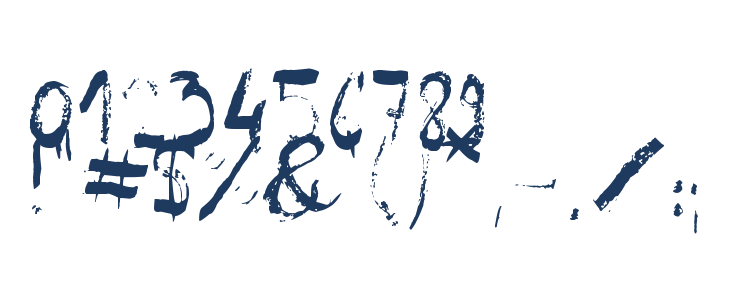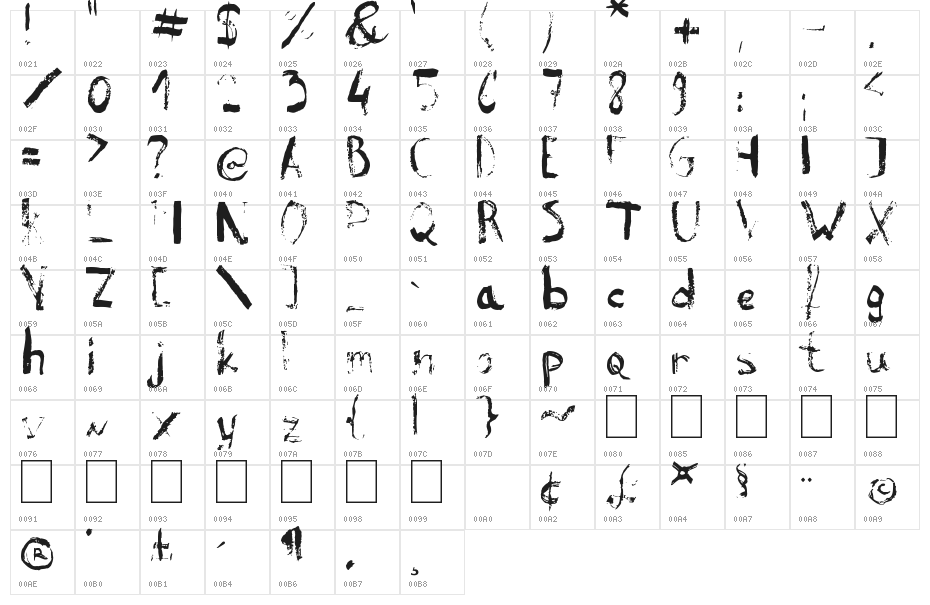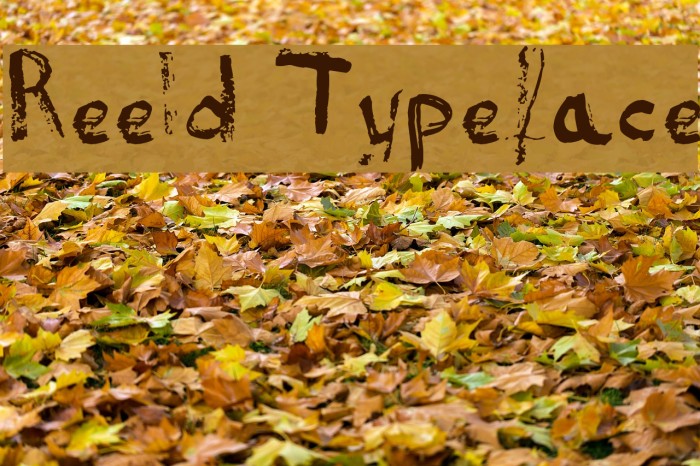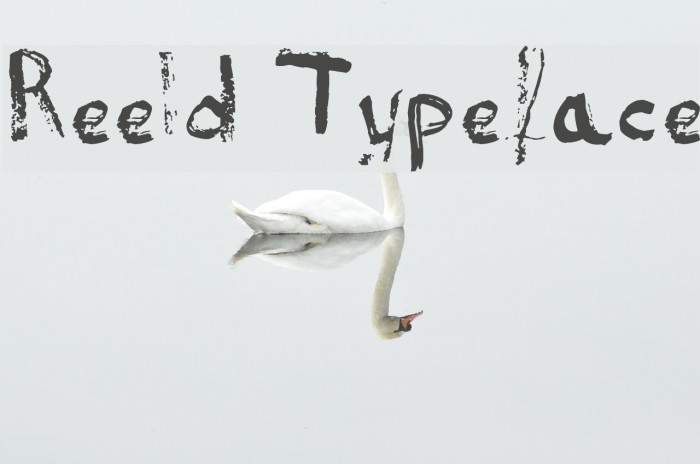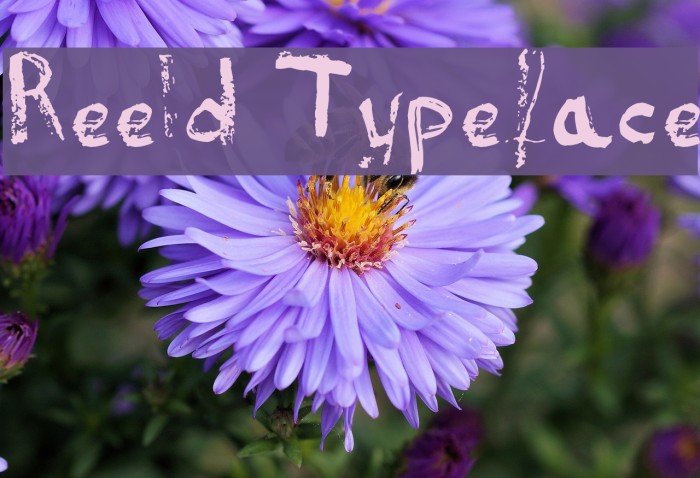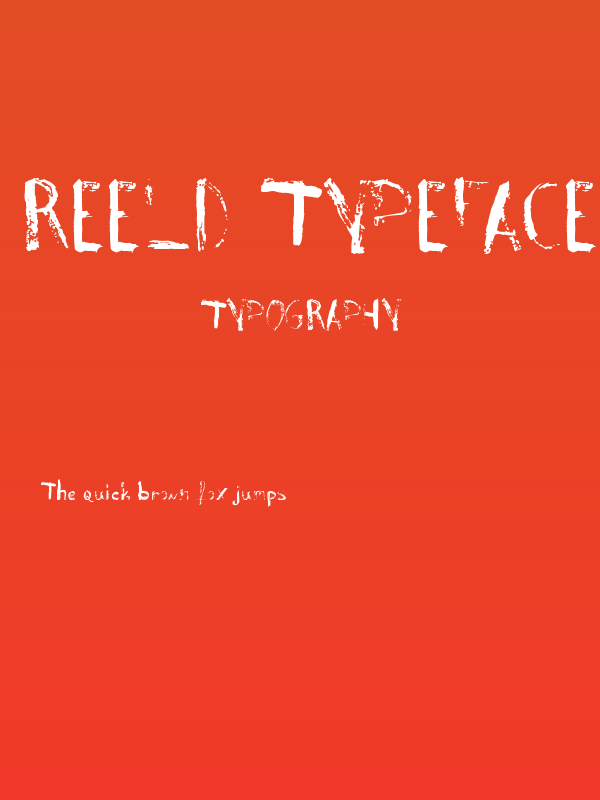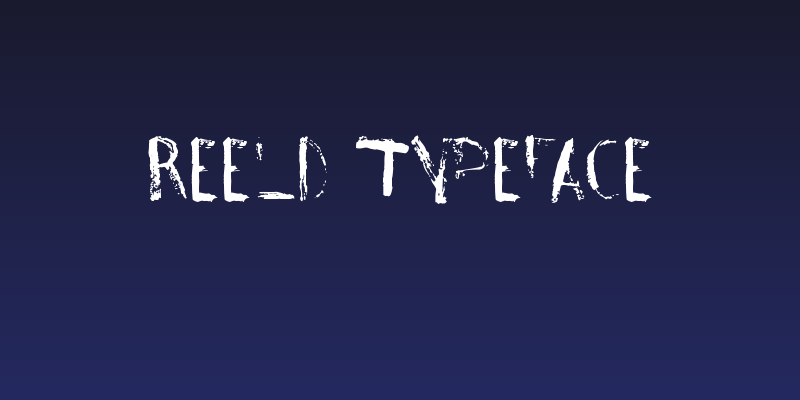
This typeface features a distressed, grunge aesthetic with irregular edges and a rough texture that gives it a worn, vintage feel. The uppercase and lowercase letters are designed with a hand-drawn appearance, showcasing varying stroke widths and a slightly chaotic arrangement. The numerals and special characters maintain this rugged style, adding to the overall edgy and artistic vibe. This font's unique character is perfect for projects that aim to convey a sense of rebellion, creativity, or nostalgia. Its distinctive look makes it stand out, ensuring any text set in this typeface will capture attention.
| Proposed Projects | Ideal for album covers, posters, urban-themed designs, and artistic branding. |